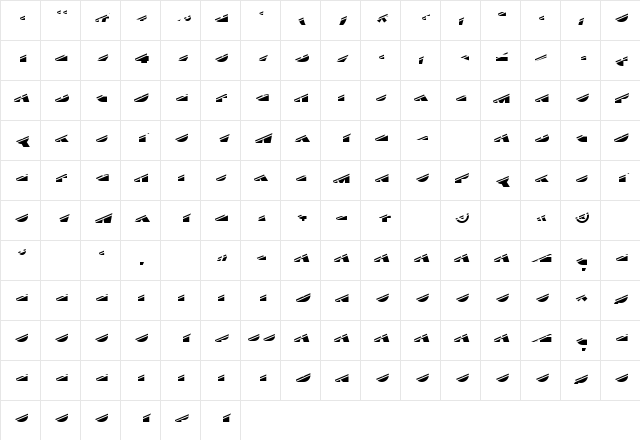
Xylitol Stripe
Design Context for Xylitol Typeface
Xylitol is a composed and adaptable typeface that performs quietly and consistently across a wide range of design contexts.